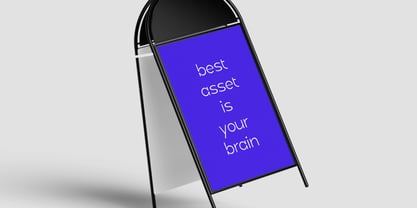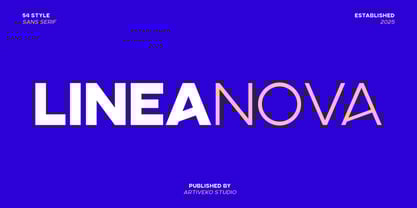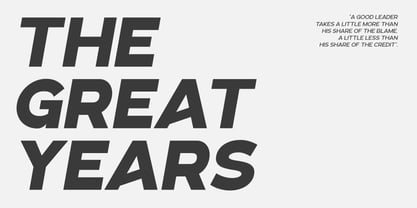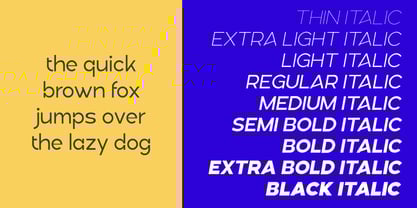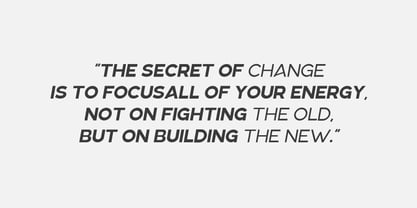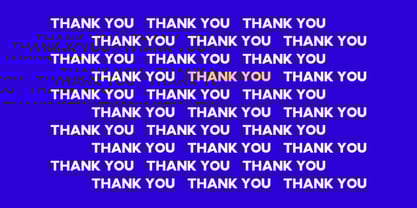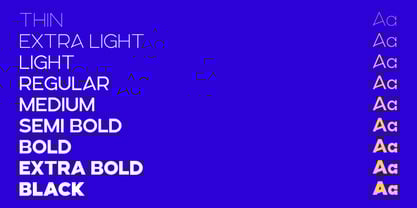
Linea Nova
by Artiveko
LineaNova is a sleek and contemporary sans serif font family designed for flexibility and elegance. With its clean lines, geometric shapes, and perfectly balanced proportions, LineaNova delivers exceptional readability and modern sophistication for all types of design projects.
This font family includes multiple weights, making it ideal for creating harmonious typography systems. From bold headlines to refined body text, LineaNova adapts seamlessly to branding, editorial layouts, UI/UX design, presentations, and packaging.
Each weight is meticulously crafted to ensure consistency and versatility, giving your projects a cohesive and professional look. The family includes uppercase and lowercase letters, numerals, punctuation, multilingual support, and stylistic alternates for added creativity.
Bring structure and elegance to your designs with LineaNova — the sans serif font family that combines style, clarity, and flexibility.
Designers: Iwan Alwan
Foundry: Artiveko